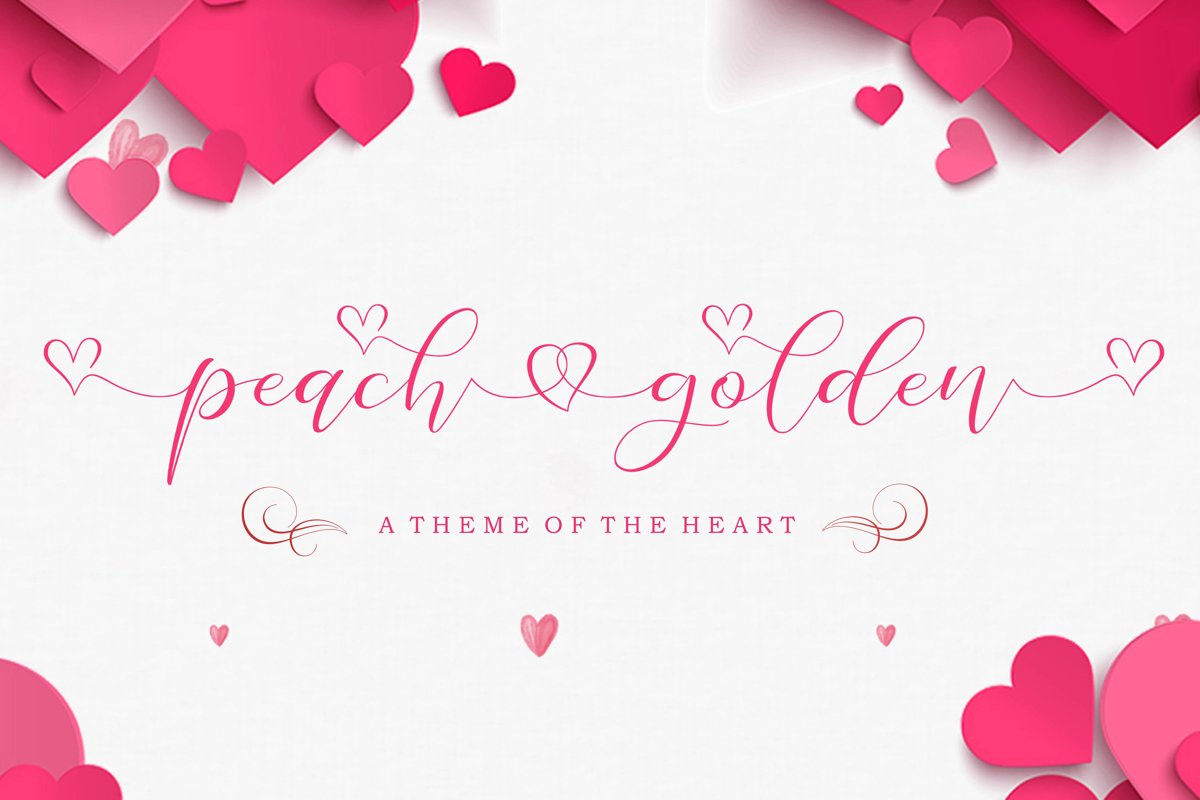
Paech Golden
Peach golden is a theme of the heart. It features gorgeous swashes and ligatures that make this script incredibly versatile. Fall in love with its authentic feel and use it to create gorgeous wedding invitations, beautiful stationary art, eye-catching social media posts, and cute greeting cards. This font is PUA encoded which means you can access all of the cute glyphs and swashes with ease! It also features a wealth of special features including alternate glyphs and ligatures.